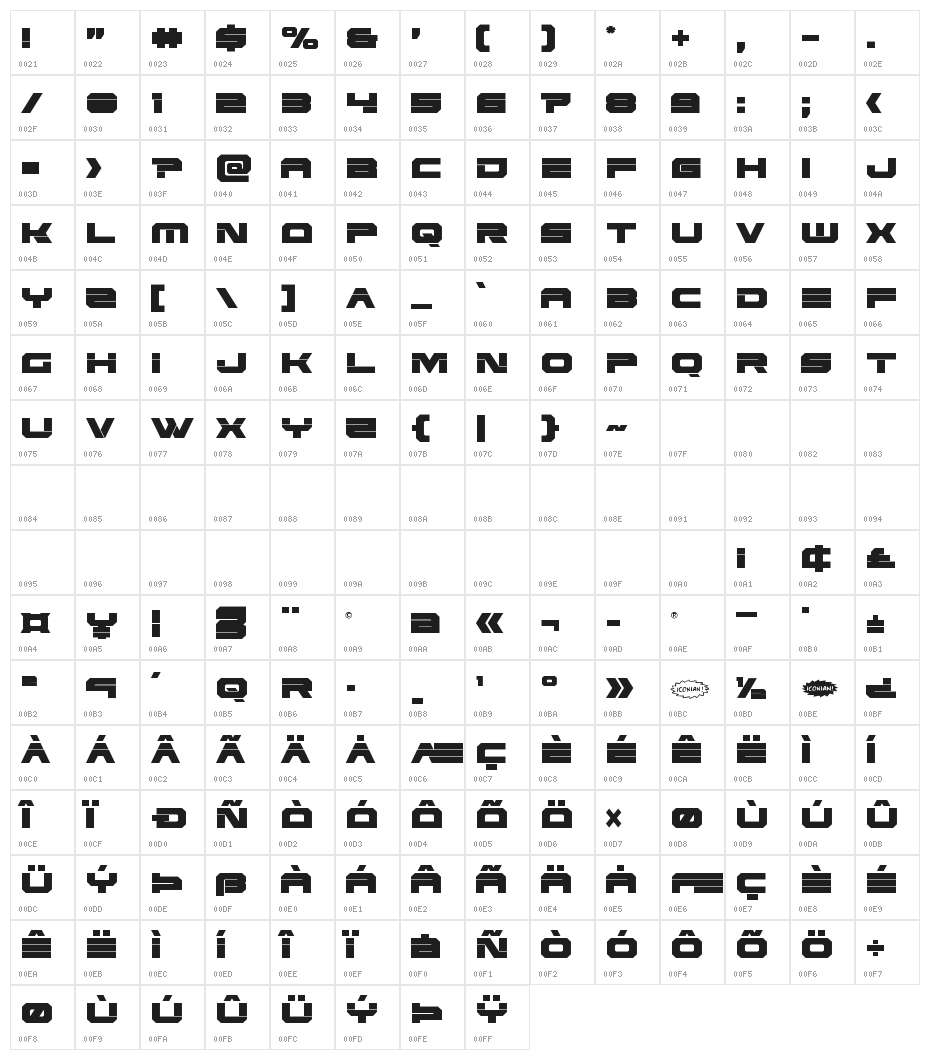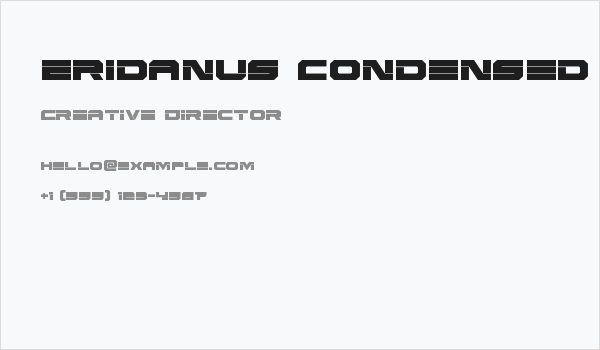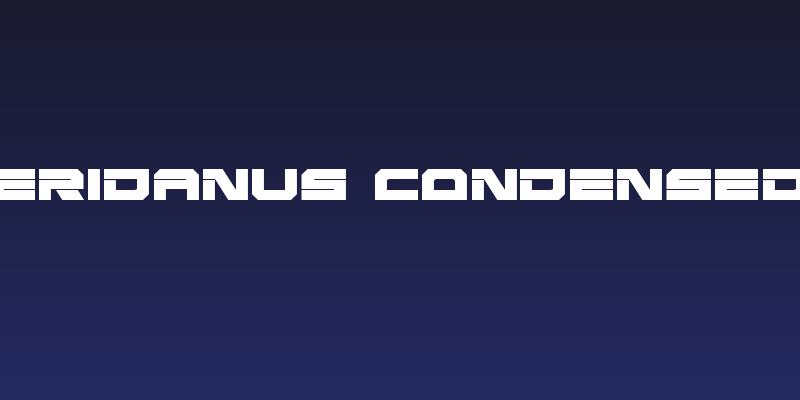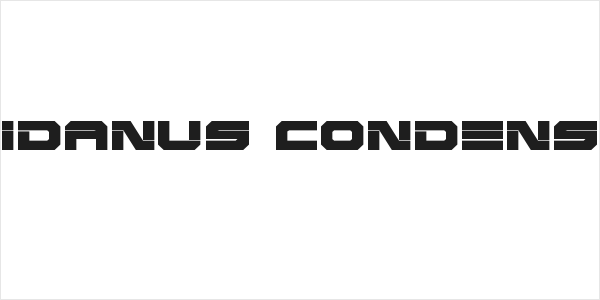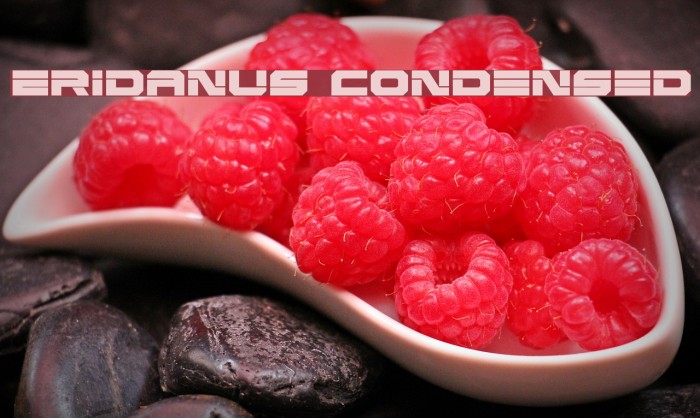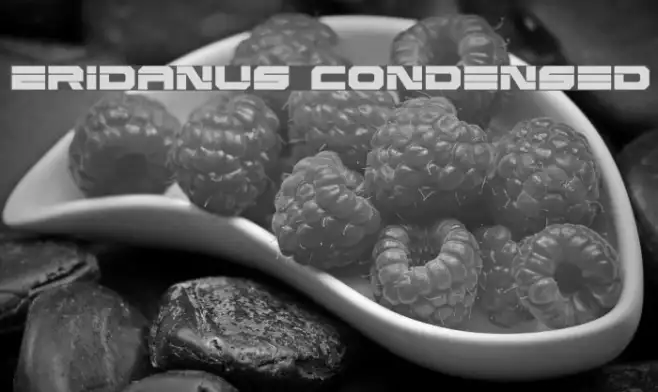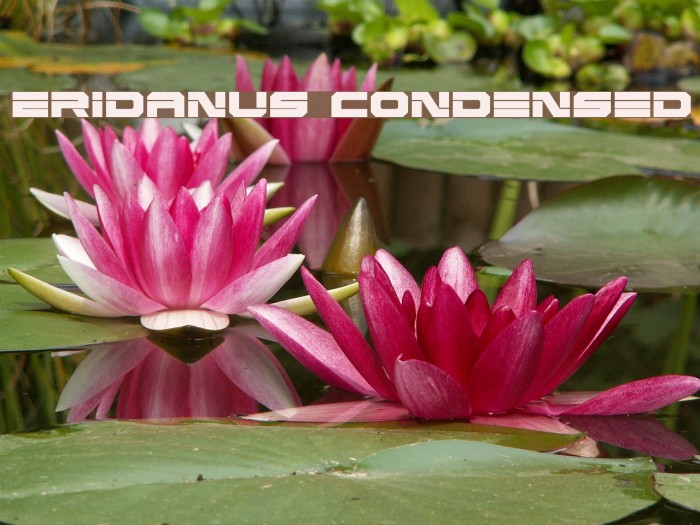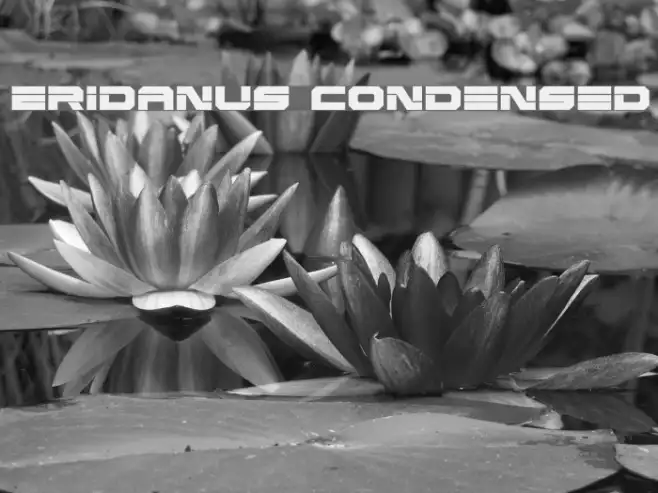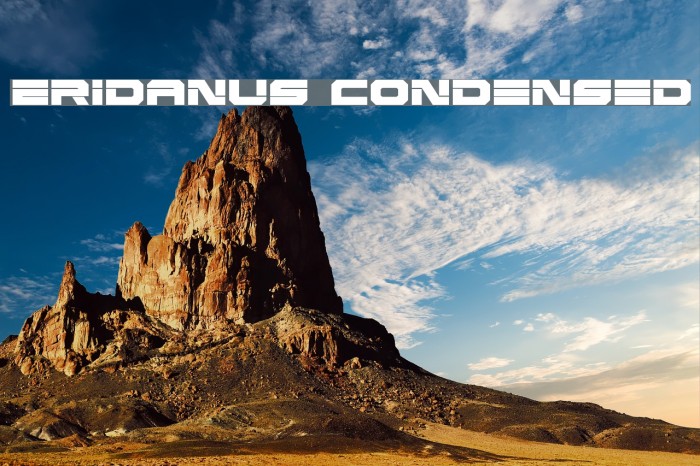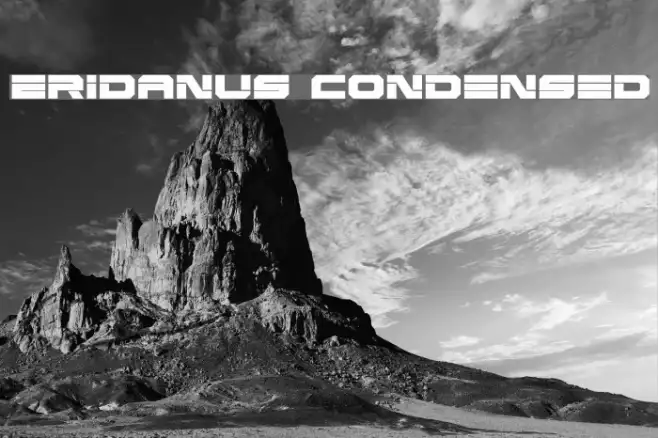
Eridanus Condensed Font
Eridanus Condensed Description
This font features a bold and geometric design, characterized by its sharp angles and block-like structure. The letters are uniformly condensed, giving a compact and modern appearance. The uppercase and lowercase characters maintain a consistent style, with minimal curves and a focus on straight lines. Numbers and special characters follow the same geometric pattern, ensuring a cohesive look across all elements. The font's distinct style makes it stand out, suitable for projects that require a strong visual impact.
| Proposed Projects | Ideal for futuristic designs, technology branding, video game titles, and sci-fi themed projects. |